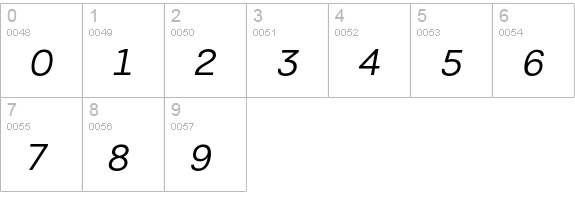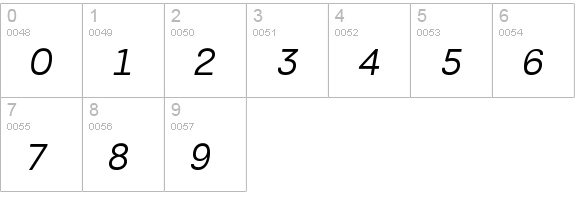
PFEncoreSansPro-BookItalic Font Details
PFEncoreSansPro-BookItalic font is a versatile and elegant typeface that strikes the perfect balance between modernity and sophistication. Its sleek and stylish design makes it ideal for a wide range of projects, from branding and advertising to editorial and web design. With its subtle italic styling, PFEncoreSansPro-BookItalic exudes a sense of refined elegance and sophistication, making it the perfect choice for adding a touch of class to your designs. The clean lines and balanced curves of this font create a sense of harmony and professionalism that will elevate any project. What's even better is that PFEncoreSansPro-BookItalic font is available for free download at FontsMarket.com, allowing you to access this premium typeface without any cost. Whether you're a designer looking to enhance your portfolio or a business owner in need of a stylish font for your branding, PFEncoreSansPro-BookItalic is sure to impress with its blend of modernity and timeless appeal.